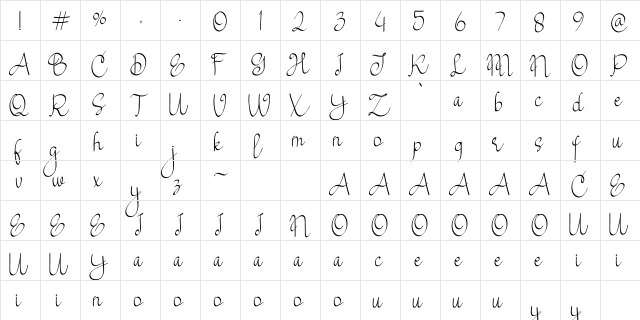
Starglass Regular
| Foundry | Airotype Design |
| Designer | Rofiq Soelta |
Design Context for Starglass Typeface
Starglass is a composed and adaptable typeface that performs quietly and consistently across a wide range of design contexts.